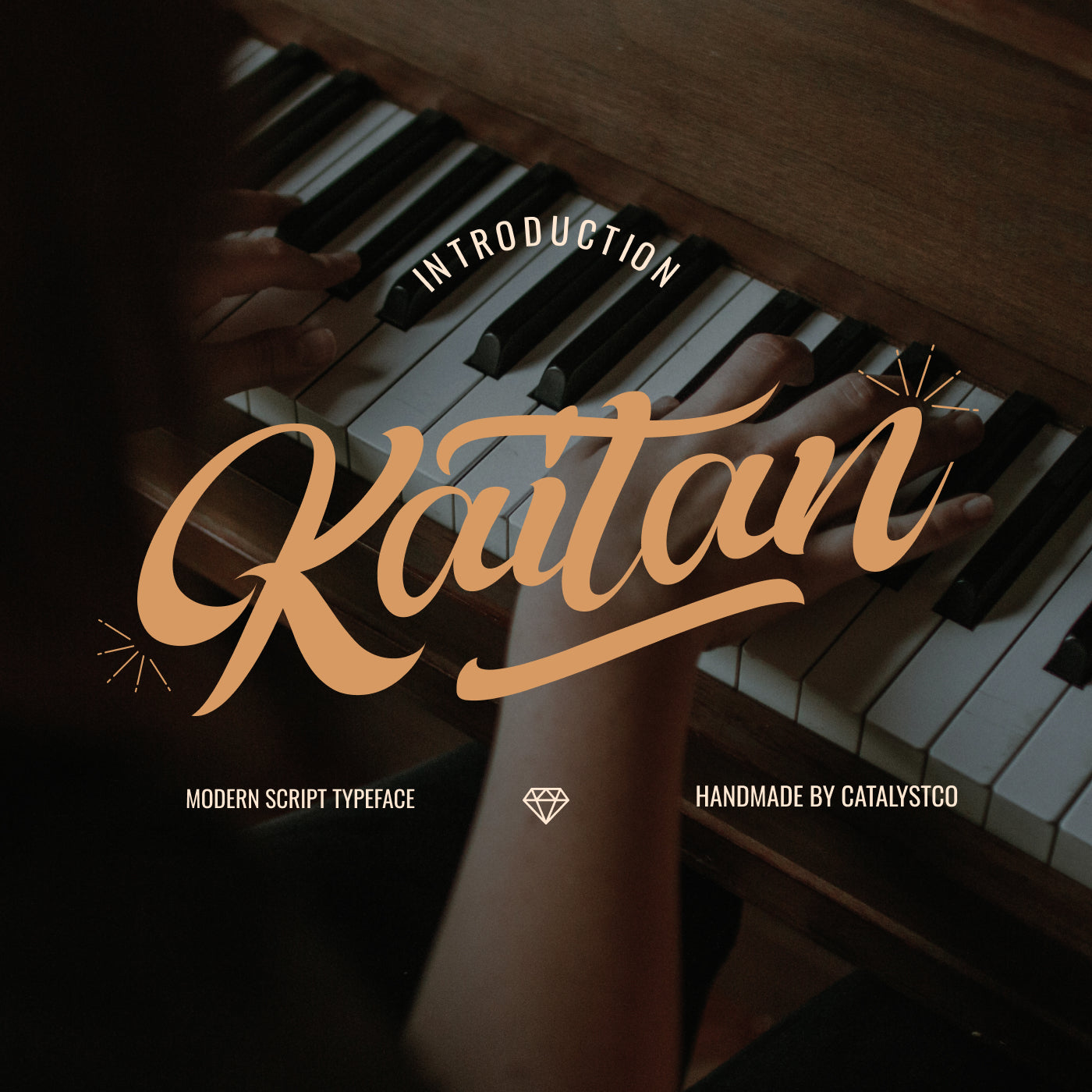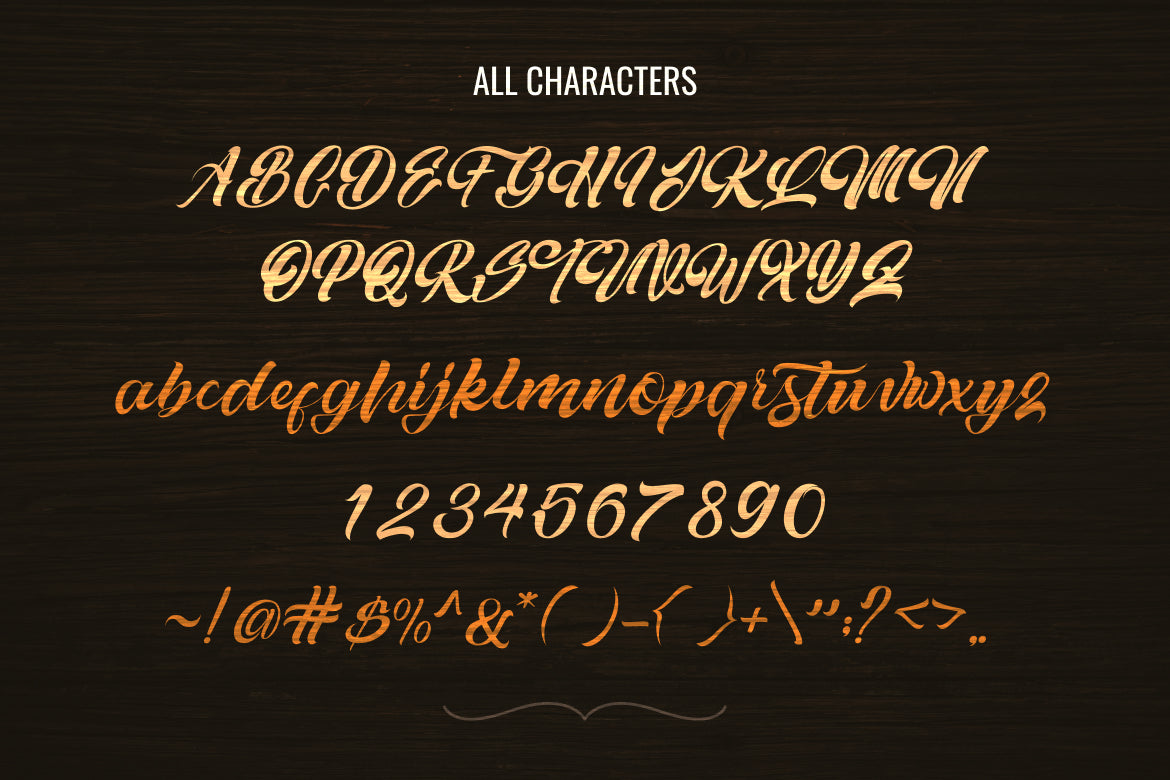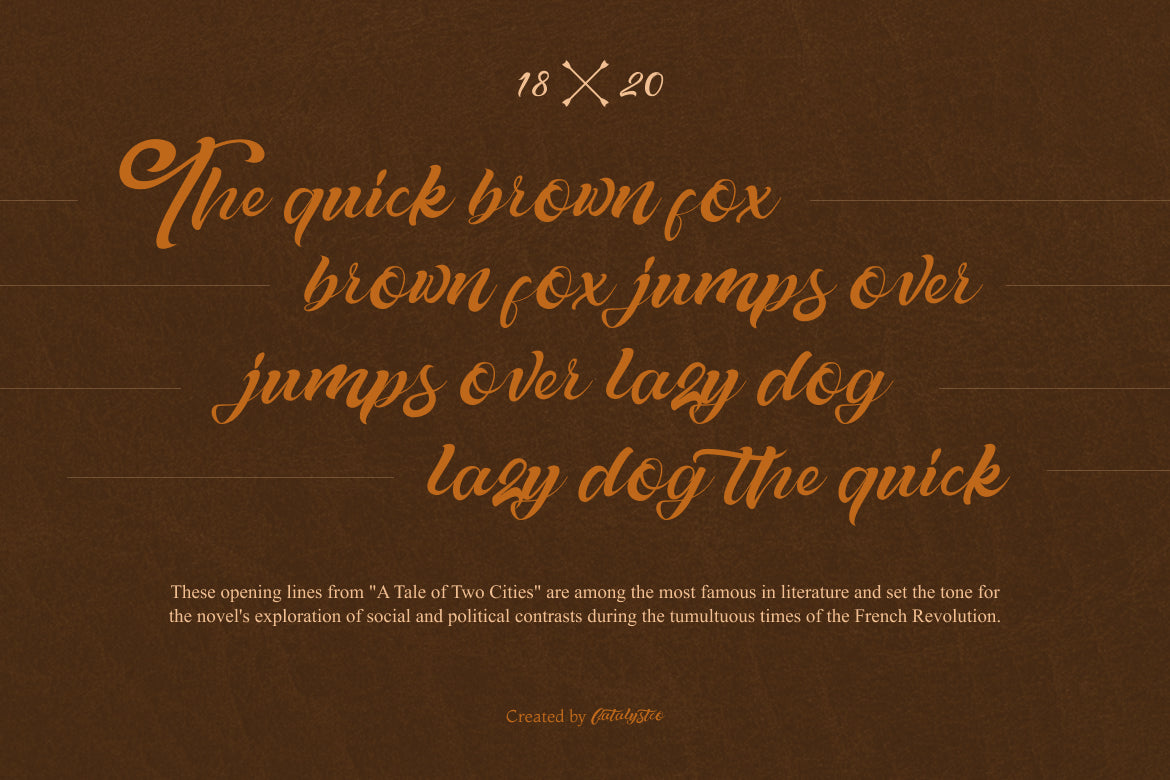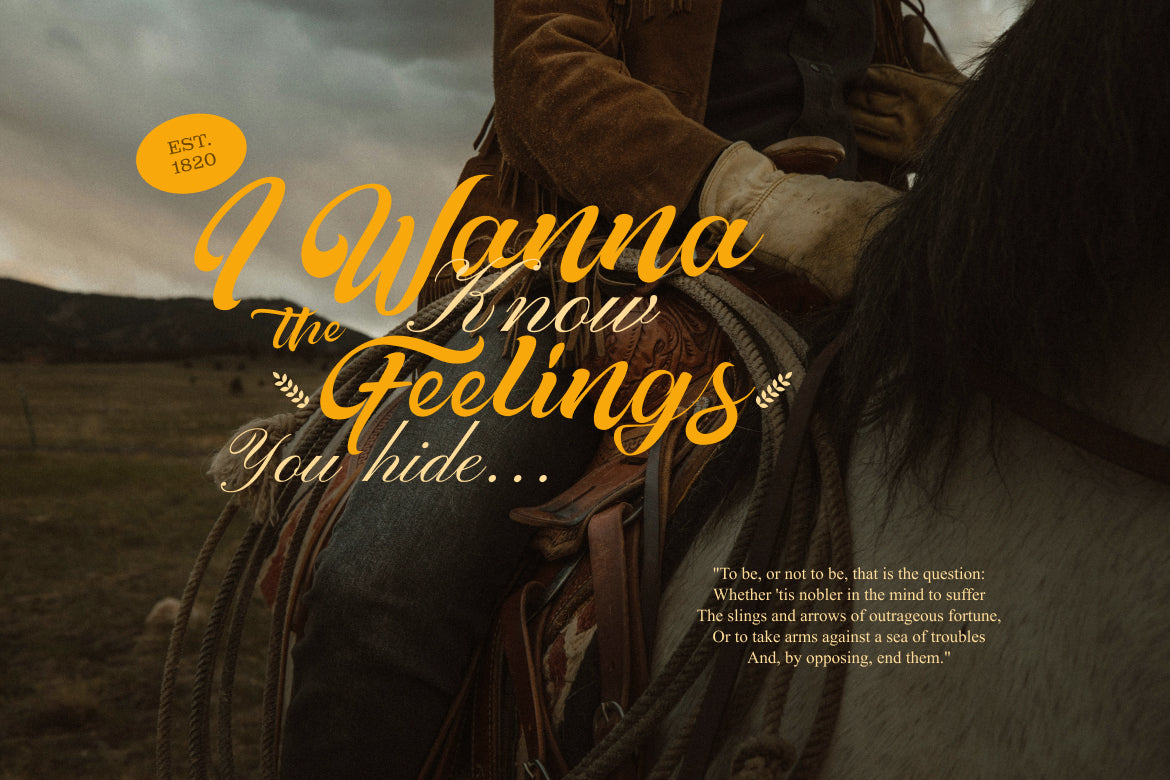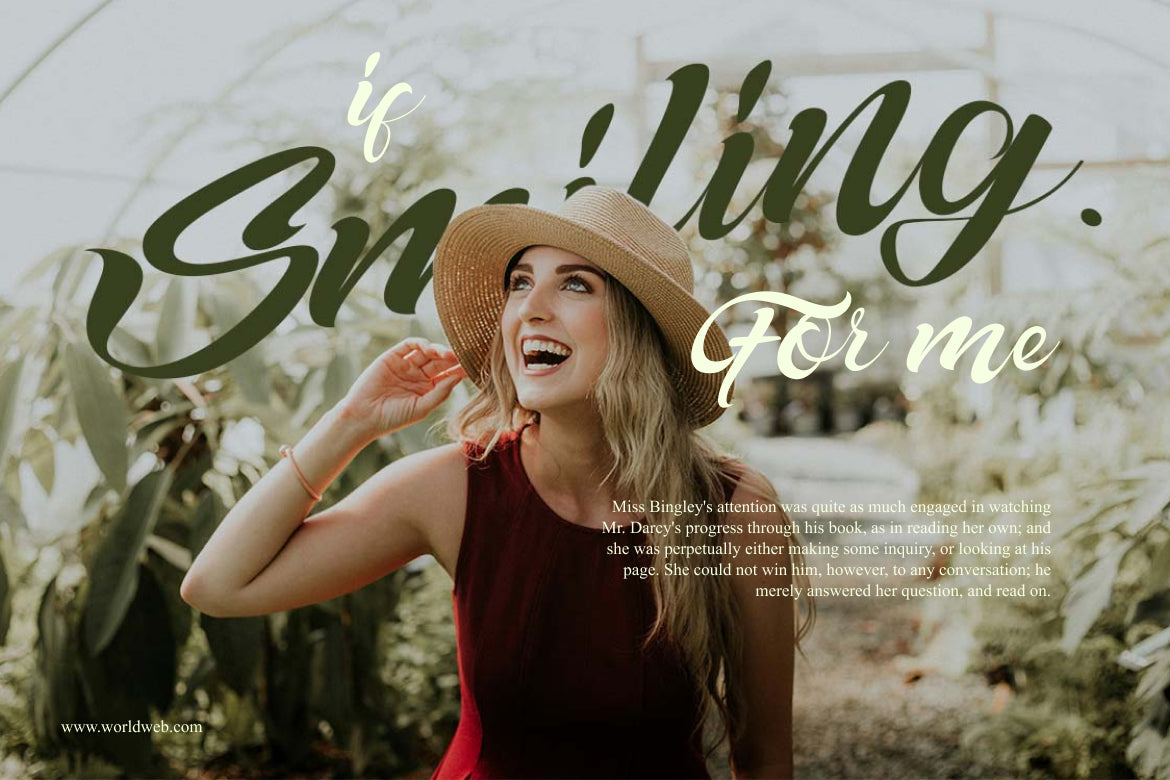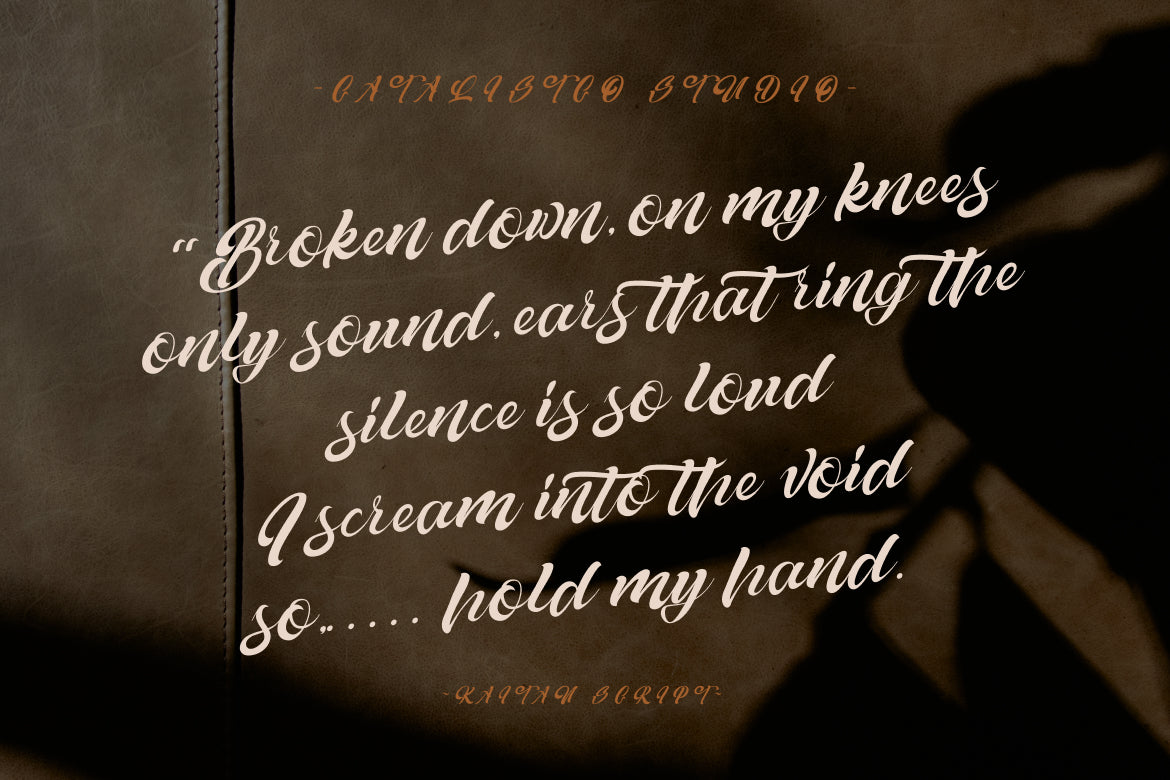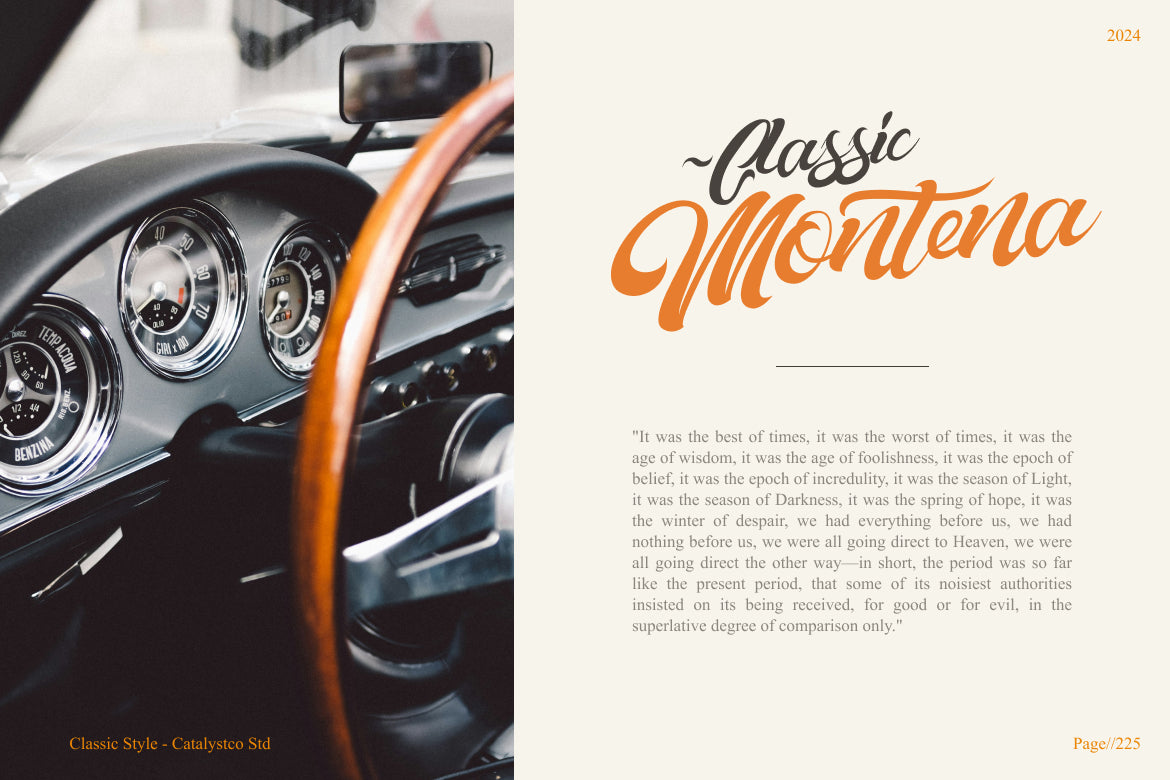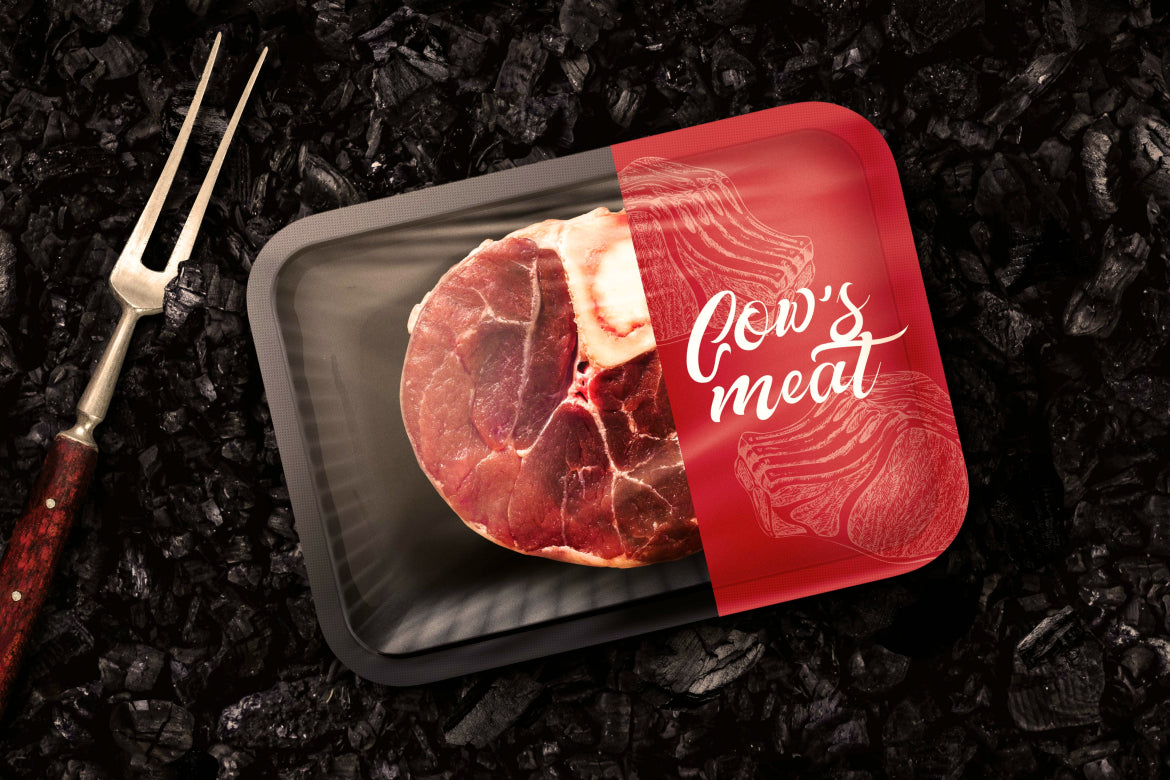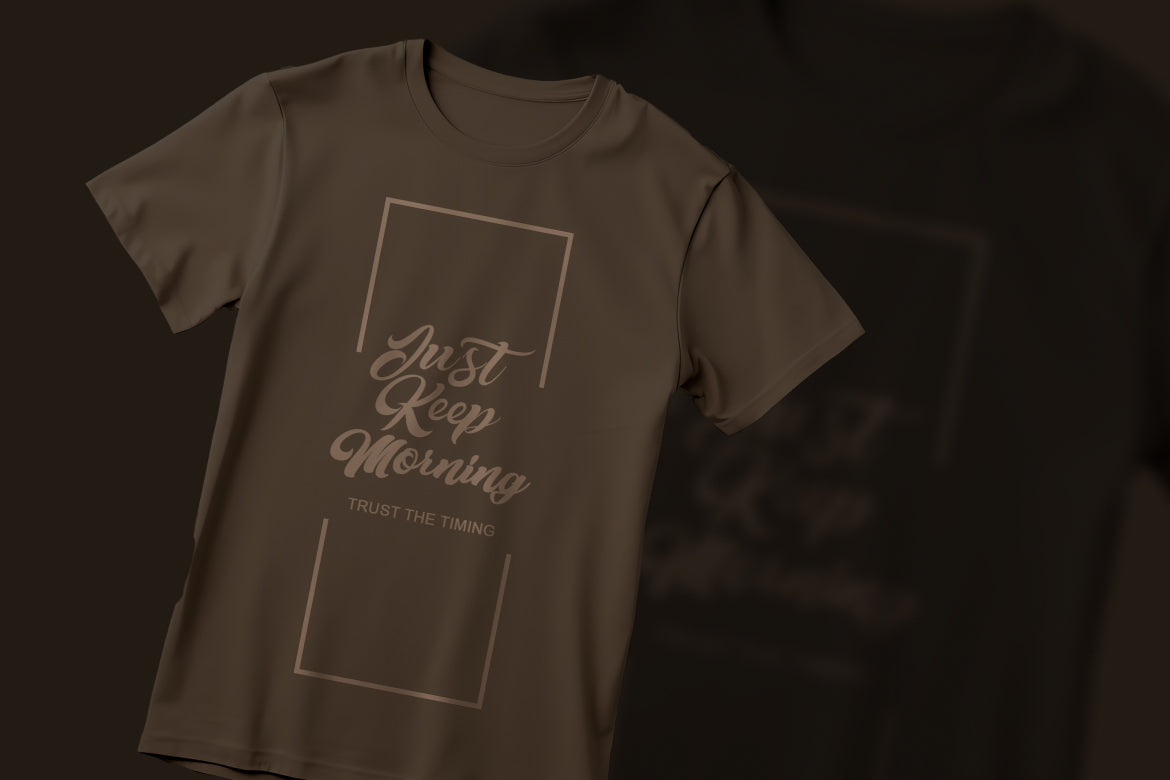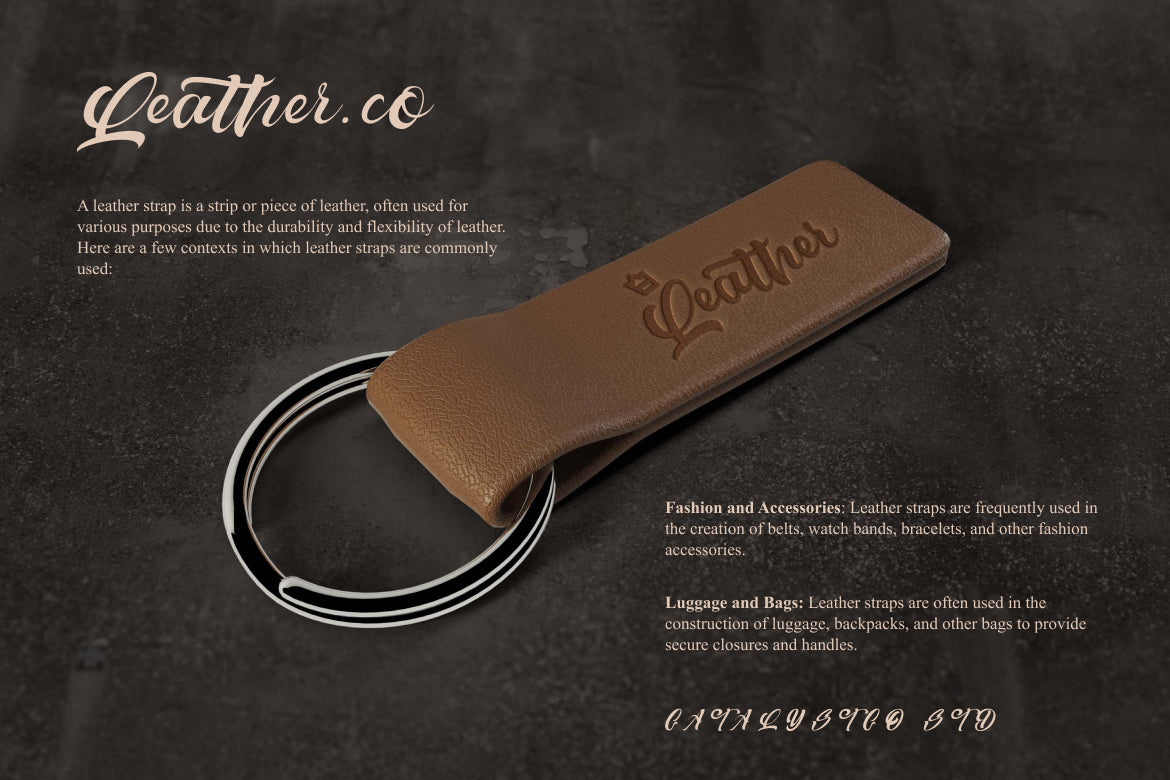
Kaitan Modern Script Typeface Font
Kaitan Modern Serif Typeface Font is a modern script typeface with expressive curves, handcrafted strokes, and a smooth flowing rhythm. Designed with a blend of brush aesthetics and refined letter shaping, it delivers a warm and charismatic feel for branding and display use. Its handwritten character and stylish script form create a strong visual personality that elevates logos, packaging, quotes, and creative compositions. Included in OTF, TTF, and WOFF formats with complete characters, numbers, and punctuation.
Relevance and Use Cases is perfect for branding projects, product packaging, personal signatures, inspirational quotes, social media graphics, creative posters, handcrafted design themes, and expressive visual identities that require a warm modern script.
Kaitan Modern Script Typeface Font is a handwritten script typeface featuring brush-style strokes and flowing letterforms, including uppercase, lowercase, ligatures, alternates, numerals, and punctuation. It is provided in OTF, TTF, and WOFF formats.